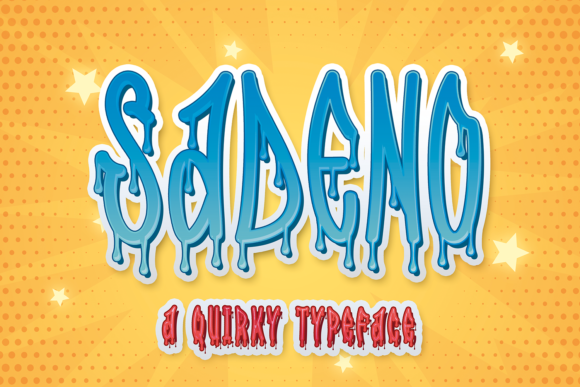
Greetings, fellow seekers of typographic brilliance! Allow me to introduce you to the captivating Sadeno Font, a display font that oozes uniqueness and personality. This spine-tingling creation by Sealoung is sure to leave an indelible mark on your designs, whether you're crafting Halloween party invitations, creepy gatherings, or any project craving a touch of the mystifying.
Prepare to embark on a captivating typographic journey as you explore the captivating Sadeno Font. Its playful, quirky nature will add a touch of the unusual to your projects. Imagine your words dancing across the page, infused with an aura of the extraordinary. Each letter, carefully crafted to evoke a sense of wonder, will captivate your audience and leave them craving more.
With Sadeno Font, you hold the key to unlocking a world of typographic possibilities. Let your imagination run wild as you create designs that embody mystery, intrigue, and a hint of the macabre. Sadeno Font is the perfect font to make your designs shine. Its distinctive style will set your work apart from the ordinary, making it stand out in a sea of bland typography.
But Sadeno Font is more than just a pretty face. It's also incredibly versatile, effortlessly adapting to a wide range of design projects. Book covers, posters, flyers, social media graphics - Sadeno Font will elevate them all with its captivating charm. Its versatility makes it a valuable asset to any designer's toolkit, ensuring that it will never gather dust in the forgotten depths of your font library.
So why settle for ordinary when you can embrace the extraordinary? Dive into the world of Sadeno Font and unleash your creativity. Let your designs take on a life of their own, filled with mystery, intrigue, and a touch of the unexpected. Embrace the spooky elegance of Sadeno Font and watch as your projects transform into masterpieces that leave a lasting impression.